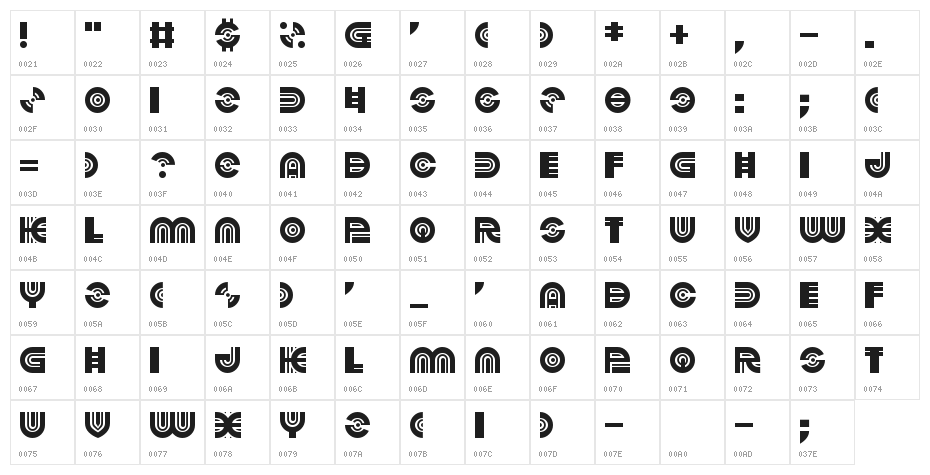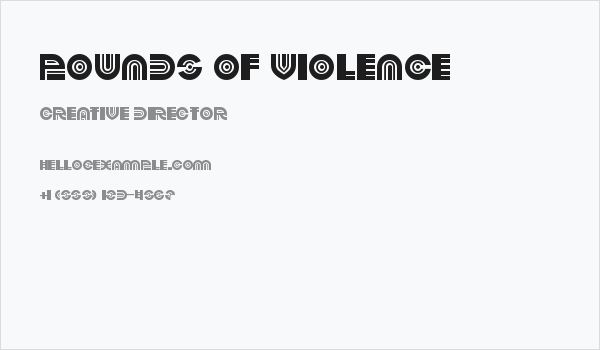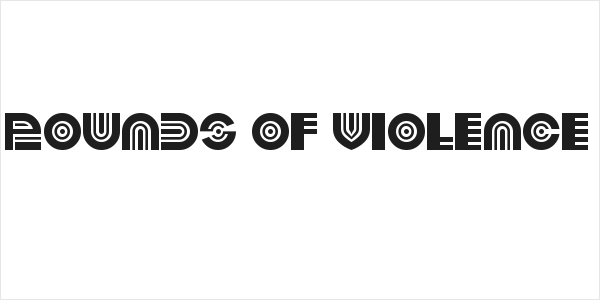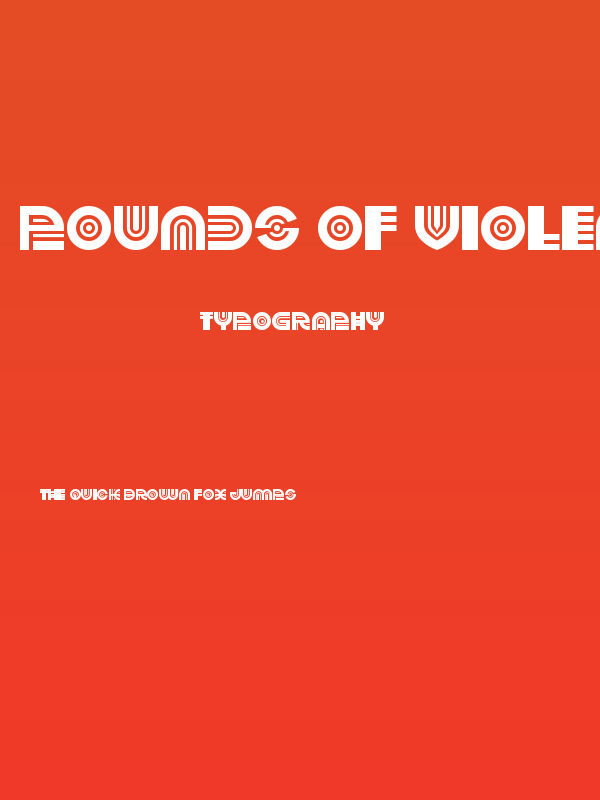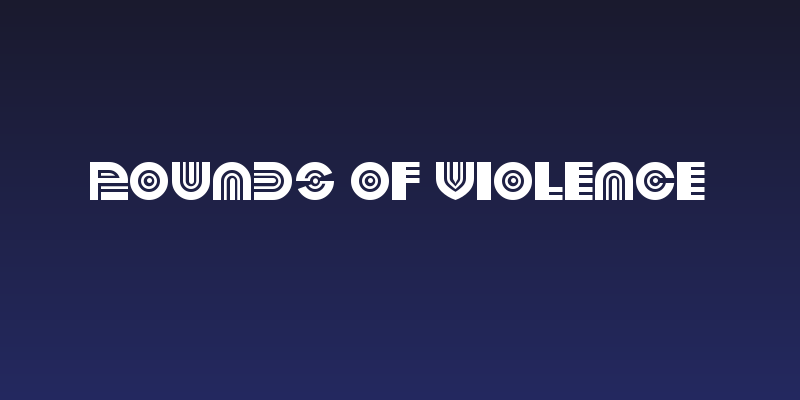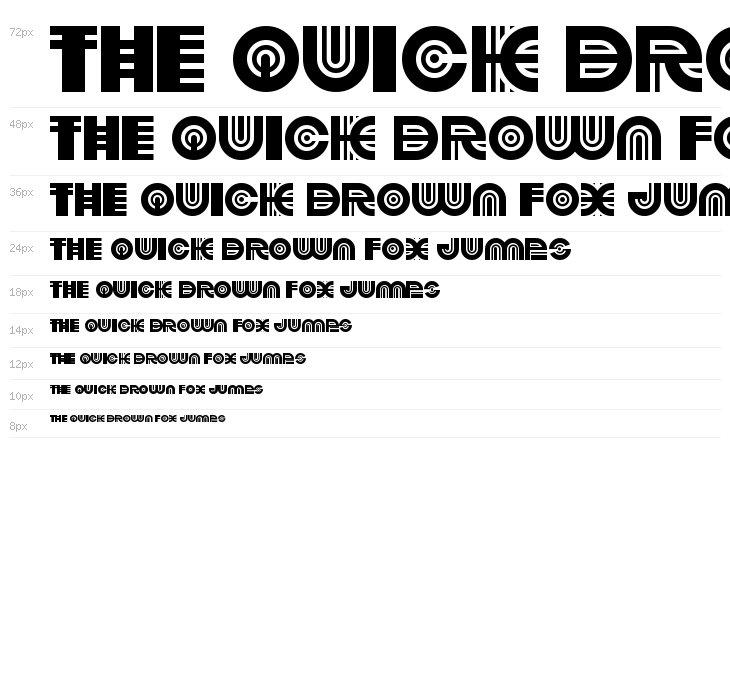
Pounds of Violence Font
Pounds of Violence Description
This font features a bold, geometric design with a futuristic and decorative flair. Each character is constructed with thick, solid lines and circular elements, creating a sense of movement and energy. The uppercase and lowercase letters share a consistent style, emphasizing symmetry and balance. The numbers and special characters are equally bold, maintaining the font's cohesive aesthetic. The overall design is striking and attention-grabbing, making it ideal for projects that require a strong visual impact.
| Overall Style | Futuristic, Decorative |
| Proposed Projects | Ideal for posters, album covers, branding, and any project that requires a bold, futuristic aesthetic. |